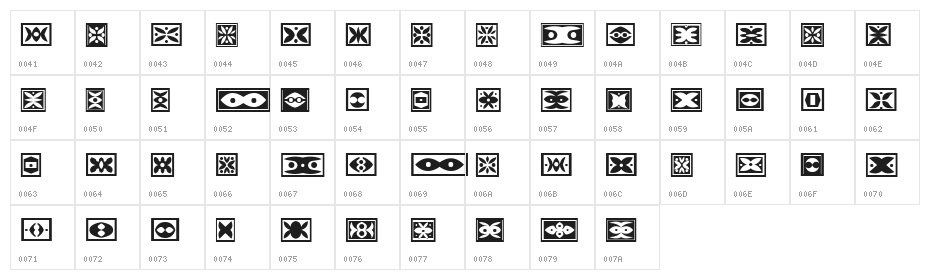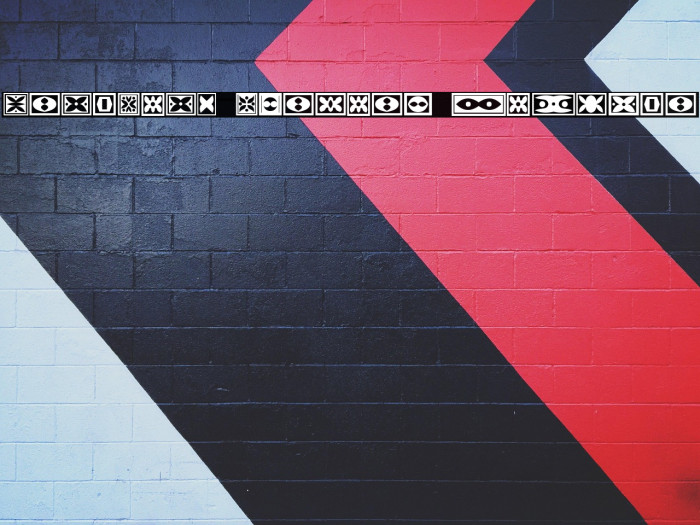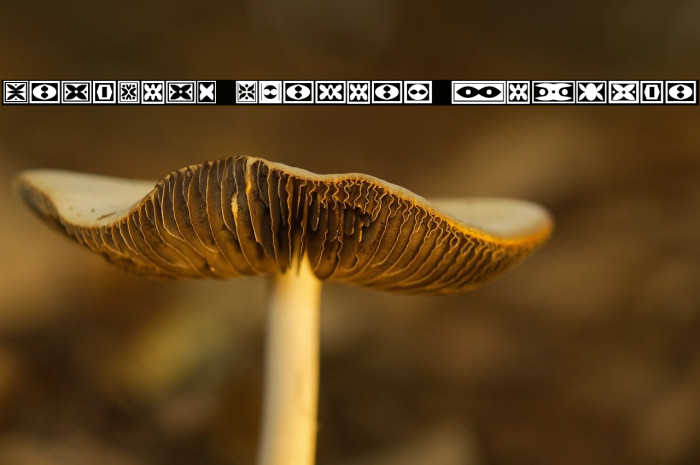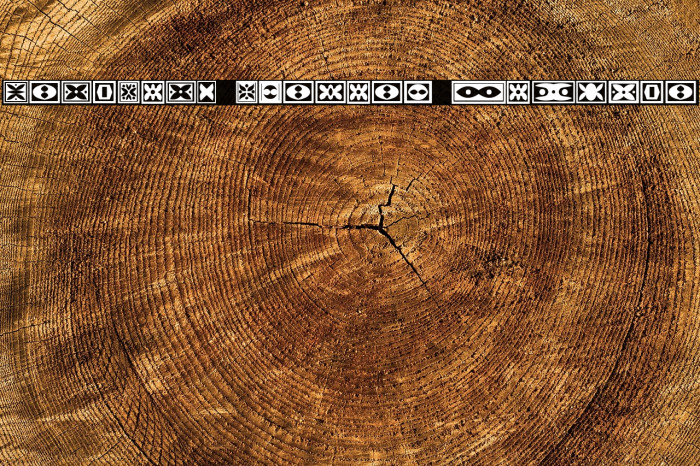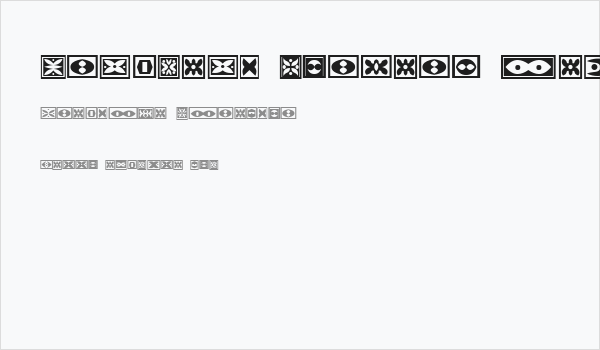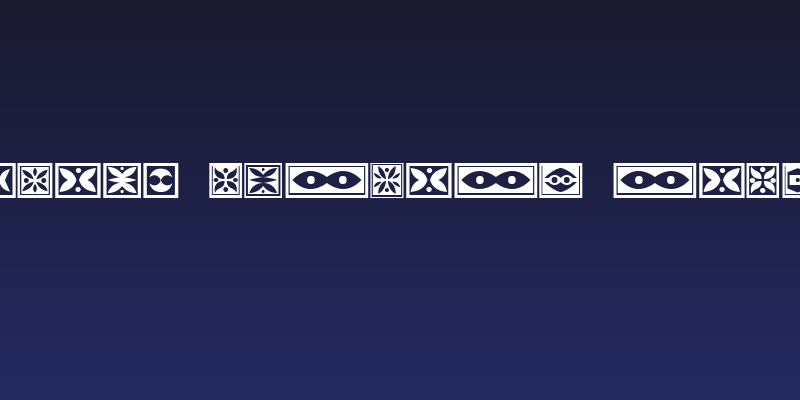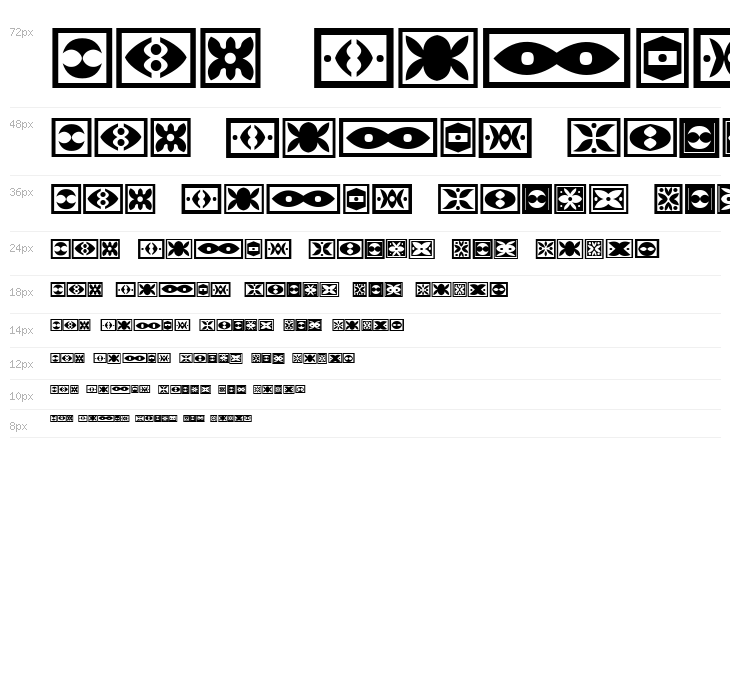
Ornament Borders Regular Font
Ornament Borders Regular Description
This is a decorative font composed entirely of ornamental border designs. Each character is represented by a unique geometric pattern, often featuring symmetrical shapes and intricate details. The designs are enclosed within rectangular frames, giving a structured and uniform appearance. The bold, high-contrast black and white style enhances the visual impact, making it suitable for decorative purposes. The font lacks traditional alphanumeric characters, focusing solely on artistic border elements.
| Use Case | Logos, Decorative borders, Art projects |
| Proposed Projects | Ideal for creating decorative borders in graphic design projects, invitations, certificates, or any artwork requiring ornamental embellishments. |